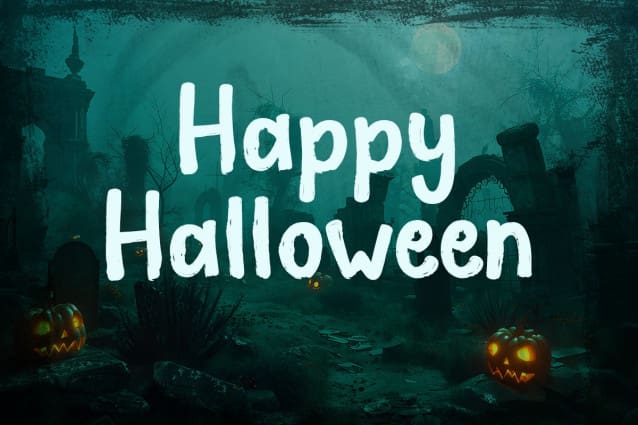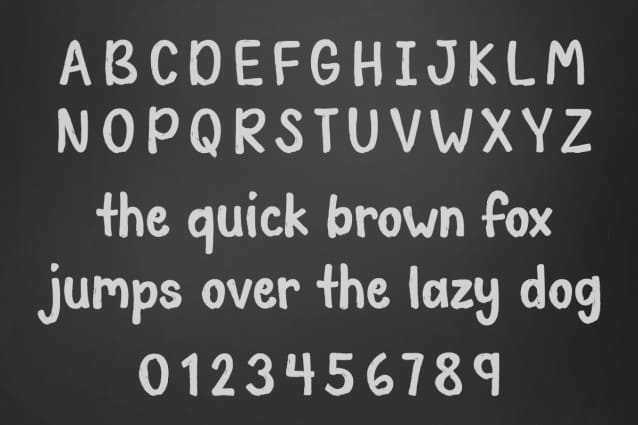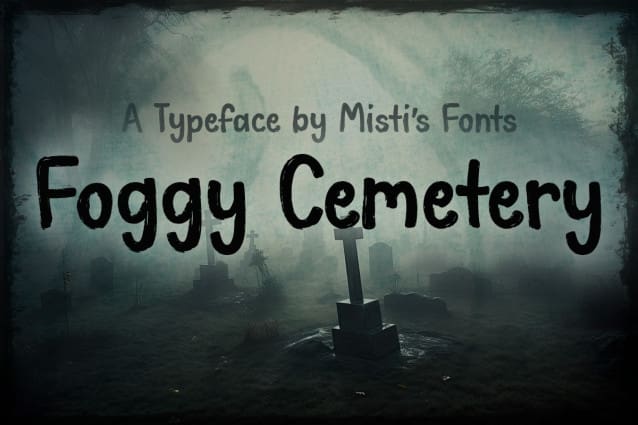
Foggy Cemetery Font
Foggy Cemetery Font is a rough, eerie font perfect for Halloween designs. Its jagged, weathered edges capture the spooky vibe of misty graveyards and haunted nights. Ideal for invitations, posters, and creepy projects, it adds a chilling, gothic touch to any design.